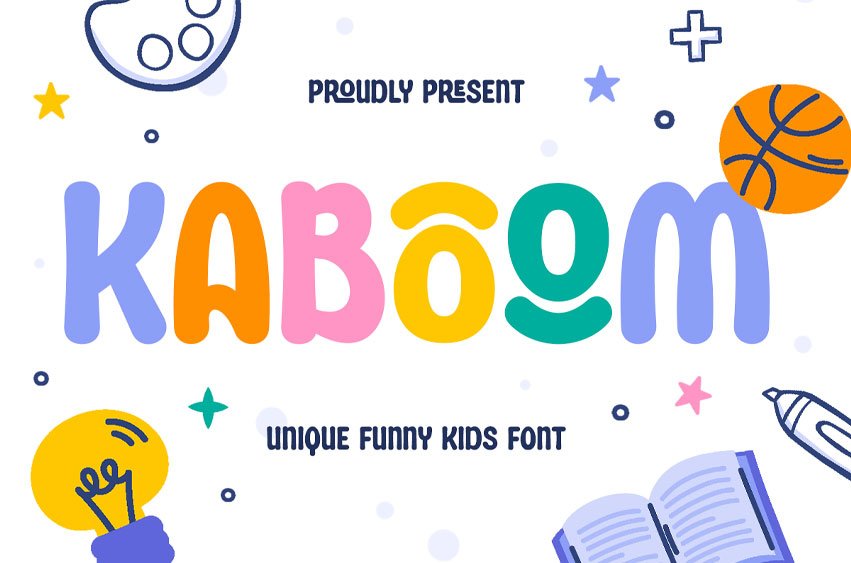
Kaboom Font
Kaboom Font is a unique, funny kids font full of energy, joy, and imagination! Designed with rounded shapes and quirky details, it brings a playful vibe to every project — perfect for children’s branding, cartoon titles, games, and creative packaging.
With bold letterforms and smooth curves, KABOOM captures a sense of excitement and fun. It’s easy to read yet full of character, making it ideal for posters, storybooks, toy packaging, classroom materials, and more.
Whether used in digital or print projects, KABOOM adds a cheerful and friendly touch that sparks creativity and happiness.
KABOOM – Unique Funny Kids Font Features
• Playful and bold font with a rounded funny look
• Perfect for kids’ branding, packaging, and cartoon titles
• Fun, easy-to-read letterforms full of personality
• Great for logos, posters, storybooks, and games
Add a burst of joy to your work with KABOOM – the ultimate funny kids font for playful, colorful, and creative designs.